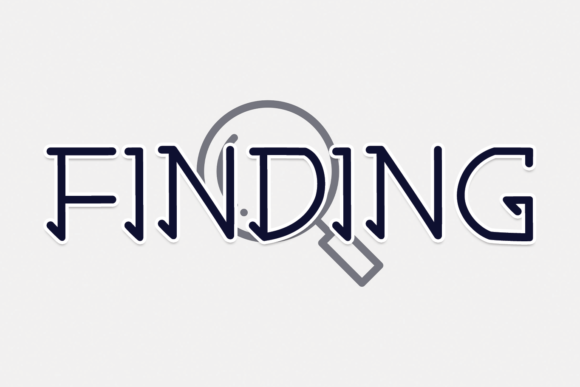
Behold, the captivating Finding Font, a display font family that redefines creativity in T-shirt design. Crafted with meticulous precision by the renowned el hotcig, this font will ignite your imagination and elevate your designs to new heights.
Finding Font is not just a font; it's an experience. Its bold and playful characters exude a sense of joy and exuberance that will make your T-shirts stand out from the crowd. Whether you're a seasoned designer or just starting out, Finding Font is the perfect weapon in your creative arsenal.
Its versatility is simply astounding. Finding Font effortlessly adapts to any design style, from quirky and playful to sophisticated and elegant. Unleash your creativity and explore the endless possibilities that await you. Each letterform has been carefully crafted to ensure perfect readability and visual appeal, ensuring that your designs captivate and inspire.
But Finding Font is more than just a beautiful font; it's a gateway to a world of self-expression. Imagine your designs adorned with Finding Font, speaking volumes about your unique personality and style. Let your creativity shine through and create T-shirts that reflect your individuality.
With Finding Font, the possibilities are boundless. Create T-shirts that make a statement, that spark conversations, that make people smile. Turn your designs into wearable works of art that people will cherish for years to come.